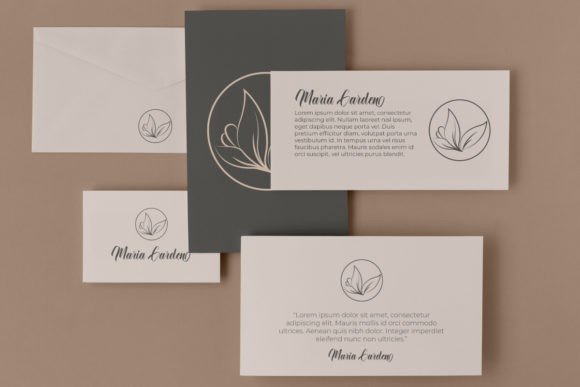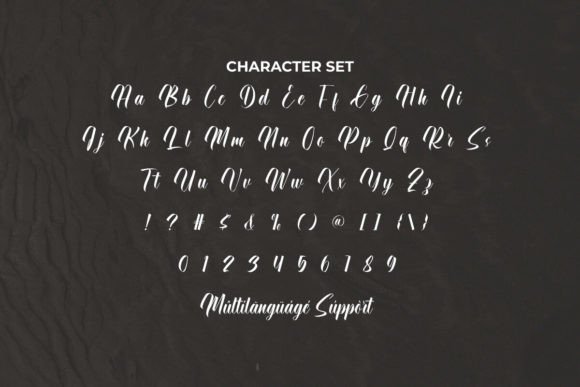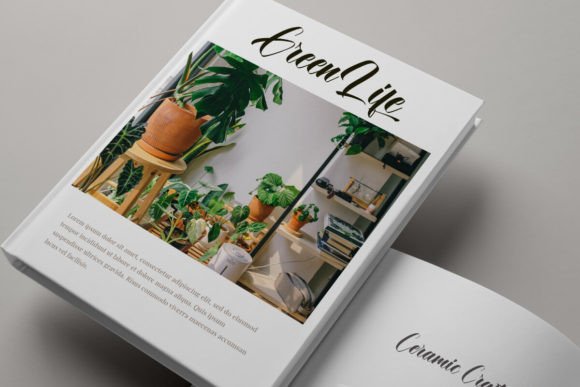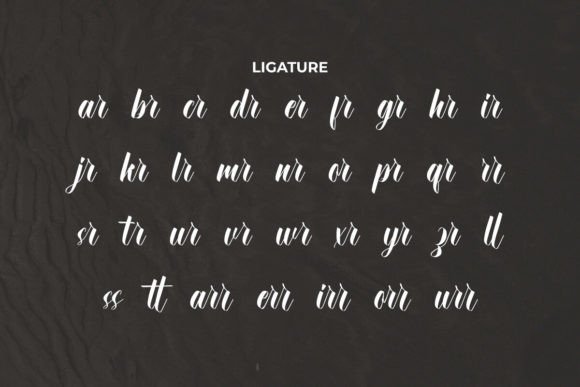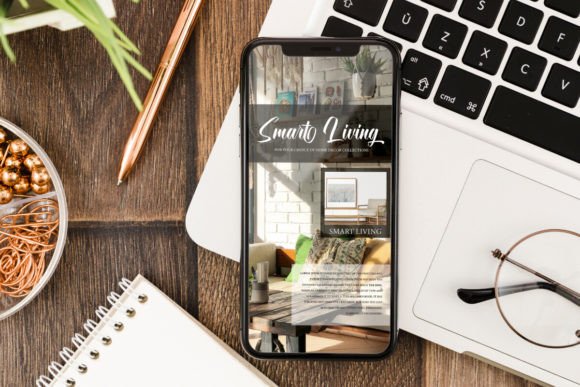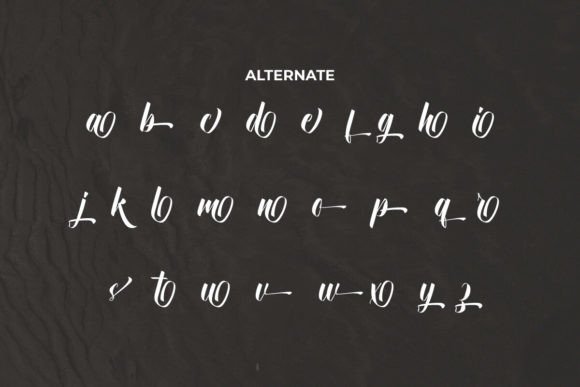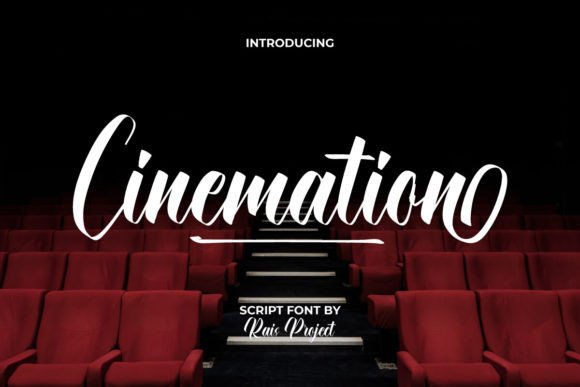
Cinemation Font: Elevate Your Designs with a Touch of Vintage Elegance
In the world of typography, fonts play a crucial role in conveying the tone and aesthetic of a design. For designers and crafters looking to add a touch of sophistication and elegance to their projects, the Cinemation Font is an excellent choice. This stylish script font, inspired by vintage or retro film themes, is perfect for creating stunning visuals that exude luxury and refinement.
What is Cinemation Font?
Cinemation Font is a modern script font that boasts bold lines and a calligraphy style reminiscent of classic cinema. The font’s design is rooted in vintage film themes, but with a modern twist that makes it easy to read and versatile for various applications. Whether you’re working on a wedding invitation, a fashion brand’s logo, or a movie poster, Cinemation Font is sure to make a statement.
Key Features of Cinemation Font
• Elegant Appearance: Cinemation Font features an elegant and sophisticated design, making it suitable for a wide range of industries, including event or wedding organizers, fashion, festivals, homeware, movies, printing, publishing, restaurants, theatre, and more.
• PUA Encoded: This font is PUA (Private Use Area) encoded, which means you can easily access all the amazing glyphs and ligatures without any hassle. This feature makes it simple to create stunning text arrangements and add a personal touch to your designs.
• Bold Lines: The font’s bold lines are inspired by vintage film themes, giving it a unique and distinctive look that’s sure to grab attention.
• Modern Twist: While Cinemation Font draws inspiration from classic cinema, it has been updated with a modern twist that makes it easy to read and use in a variety of contexts.
Industries That Can Benefit from Cinemation Font
Cinemation Font’s versatility makes it an excellent choice for various industries, including:
• Event and Wedding Organizers: Create stunning wedding invitations, event posters, and branding materials that exude elegance and sophistication.
• Fashion: Use Cinemation Font to create bold and eye-catching logos, advertisements, and marketing materials that showcase your brand’s style and flair.
• Festivals: Add a touch of glamour to your festival posters, flyers, and social media graphics with this stylish font.
• Homeware: Create beautiful packaging, labels, and marketing materials for your homeware products with Cinemation Font.
• Movies: Use this font to create movie posters, title sequences, and other visual elements that require a touch of classic Hollywood glamour.
• Printing and Publishing: Add a touch of elegance to your book covers, magazine layouts, and other printed materials with Cinemation Font.
• Restaurants: Create menus, advertisements, and branding materials that showcase your restaurant’s style and sophistication.
• Theatre: Use Cinemation Font to create stunning posters, flyers, and marketing materials for your theatre productions.
Tips for Using Cinemation Font
To get the most out of Cinemation Font, here are some tips to keep in mind:
• Pair it with Simple Backgrounds: Cinemation Font’s bold lines and elegant appearance make it perfect for use on simple backgrounds that won’t compete with the text.
• Experiment with Ligatures: Take advantage of the font’s PUA encoding to access ligatures and create stunning text arrangements.
• Use it for Headlines: Cinemation Font is perfect for headlines, titles, and other prominent text elements where you want to make a statement.
• Mix and Match: Don’t be afraid to experiment with different font combinations to create a unique look that suits your brand or project.
Cinemation Font is a stylish and elegant script font that’s perfect for designers and crafters looking to add a touch of vintage sophistication to their projects. With its bold lines, modern twist, and PUA encoding, this font is versatile and easy to use. Whether you’re working on a wedding invitation, a fashion brand’s logo, or a movie poster, Cinemation Font is sure to elevate your designs and make them stand out.